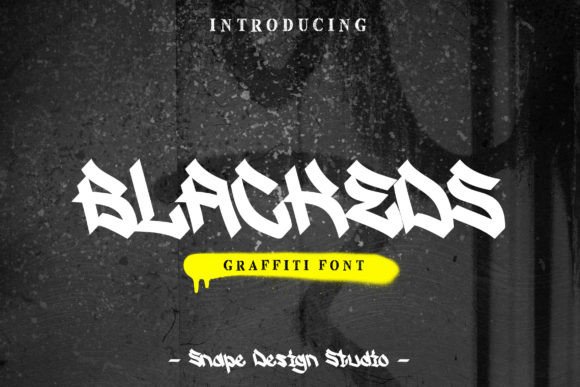
Prepare yourself to be captivated by Blackeds, the font that embodies the raw energy of street art. This display font, crafted by the ingenious snapedsgn, draws inspiration from the vibrant world of graffiti, capturing the essence of urban culture. Its characters are a symphony of bold strokes and edgy lines, reminiscent of the vibrant murals that adorn city walls.
With Blackeds, you hold the key to unlocking a world of creative possibilities. Unleash your inner street artist and let your designs radiate with an authentic, urban flair. Whether you're crafting logos that demand attention, designing posters that scream individuality, or creating social media posts that ignite engagement, Blackeds is your ultimate weapon.
Dive into the depths of Blackeds' versatility. Its urban, hip, graffiti-style characters transcend boundaries, adapting effortlessly to a myriad of creative endeavors. Let your imagination run wild as you transform ordinary text into captivating works of art.
Transport yourself to the heart of the city, where Blackeds thrives as the voice of the streets. Its bold, eye-catching presence commands attention, ensuring your designs leave a lasting impression. Whether you're a seasoned designer seeking a fresh perspective or a budding artist eager to make a statement, Blackeds is your passport to creative liberation.
Don't settle for ordinary fonts that blend into the background. Embrace the bold, the daring, and the unconventional with Blackeds. Let your designs resonate with the raw energy of the streets, captivating your audience with every stroke. Blackeds is more than just a font; it's a statement of individuality, a testament to your artistic prowess.